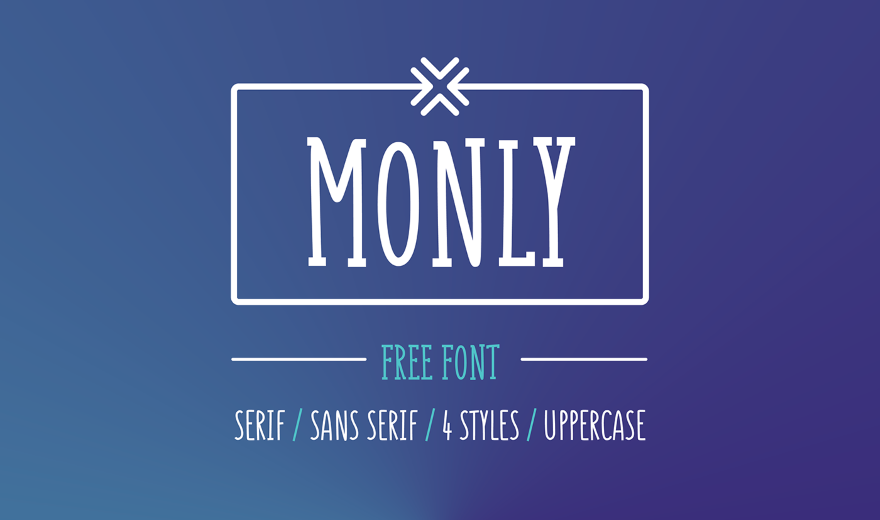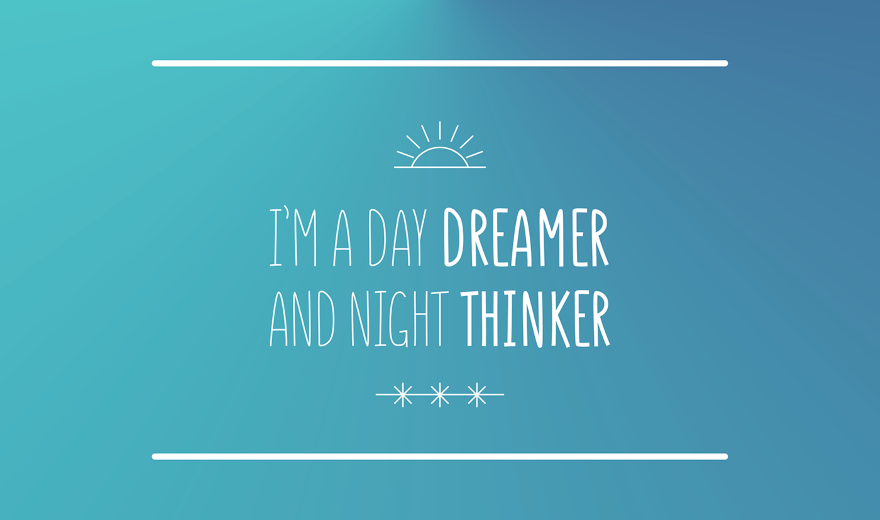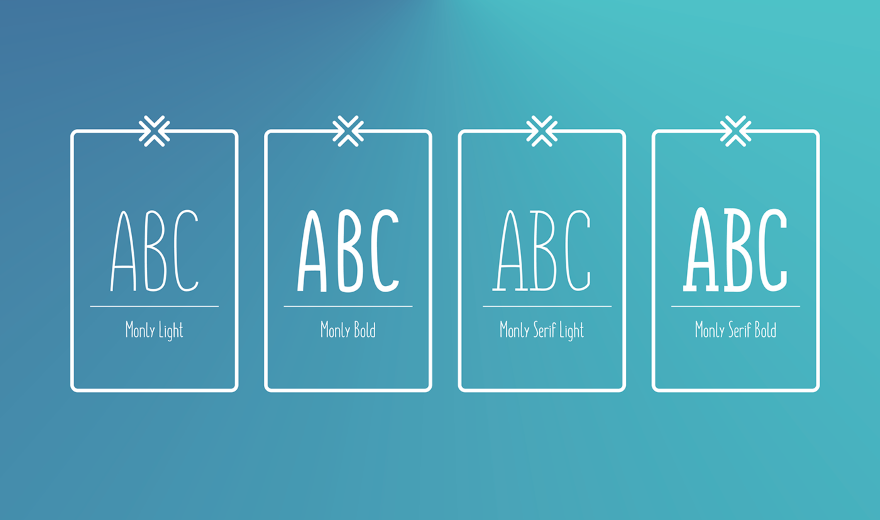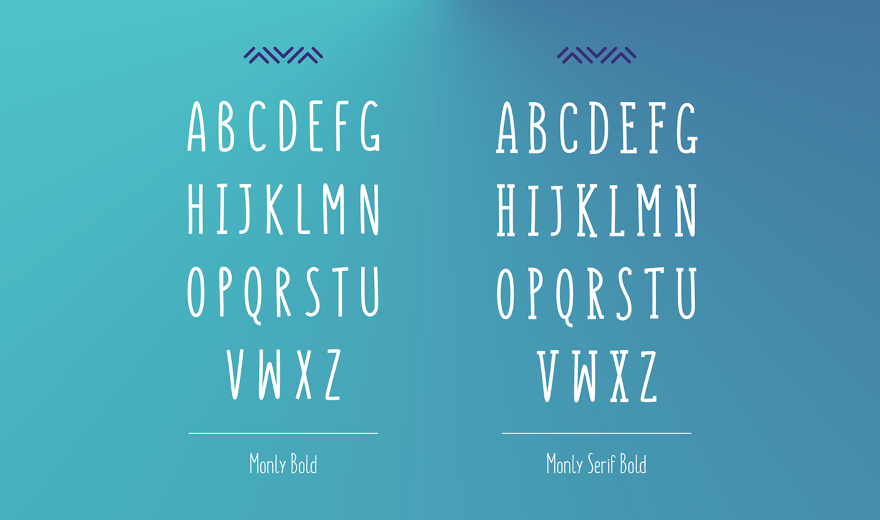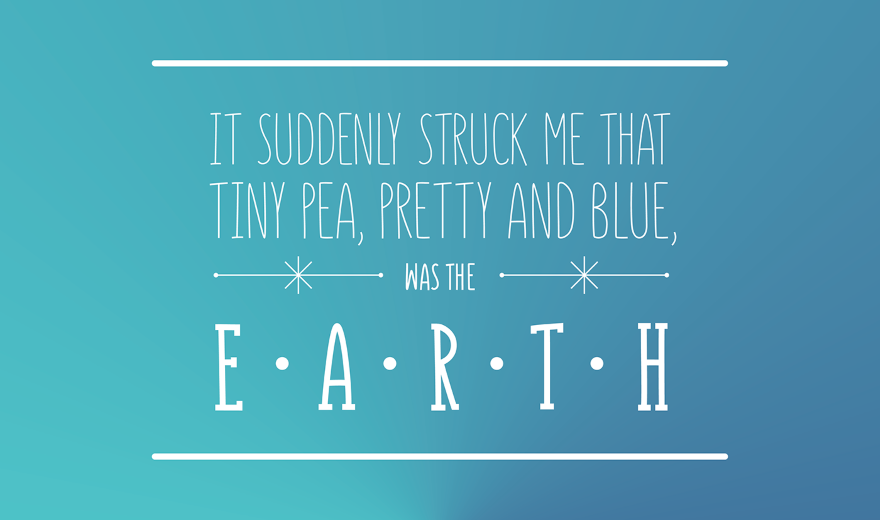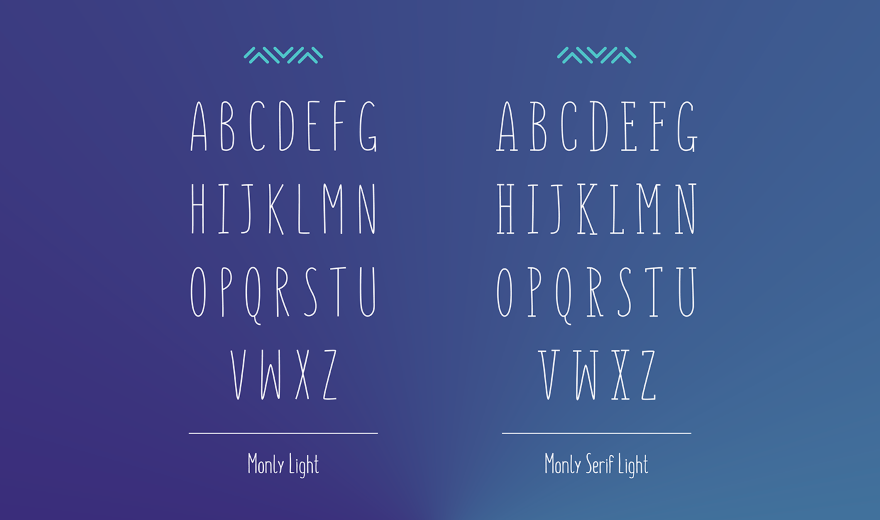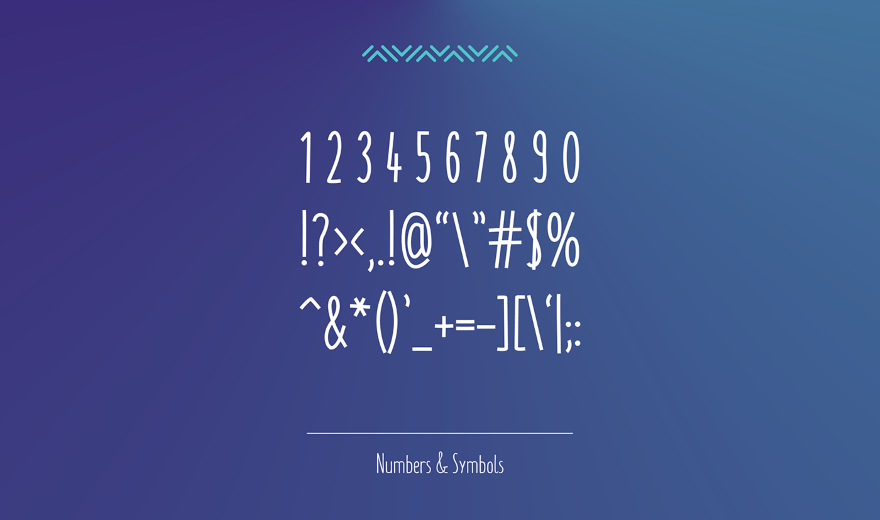
Download Monly - a free playful and easy to read typeface. The constructions of the font are based on a single line. Monly free font has both Serif and Sans Serif versions, which come in light and bold styles. You can use this free font on commercial and personal projects.